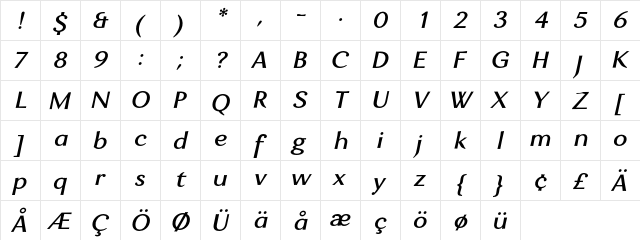
Enzia Medium Italic
Design Context for Enzia Typeface
Enzia is a composed and adaptable typeface that performs quietly and consistently across a wide range of design contexts. Its italic angle brings a sense of urgency and motion to the letterforms.
Pro Tip: Use Enzia for emphasis, pull quotes, and subheadings where its slanted energy can add rhythm to the layout.